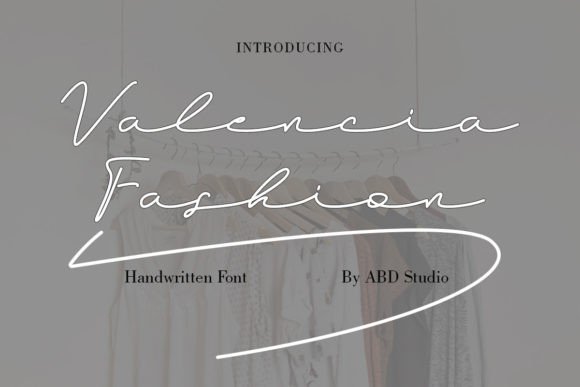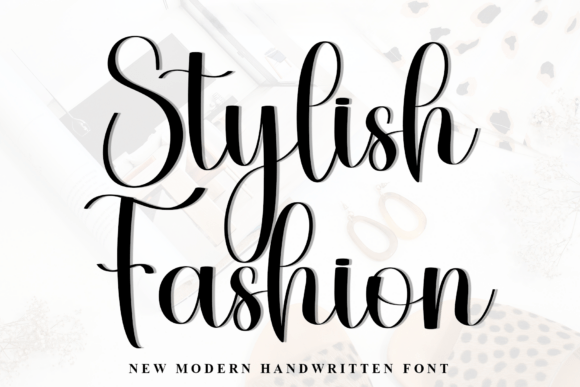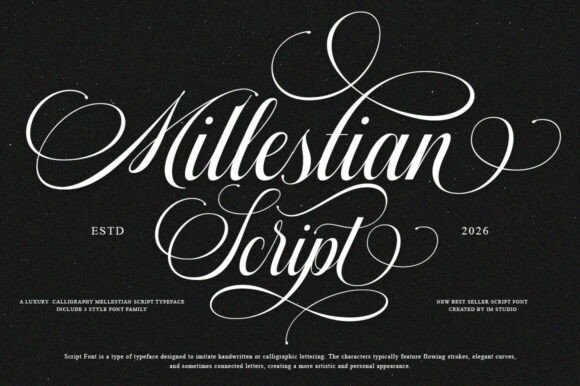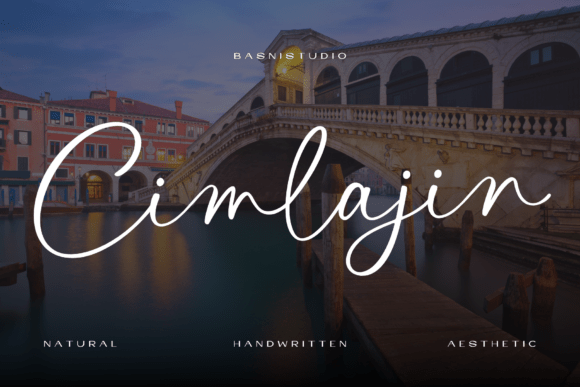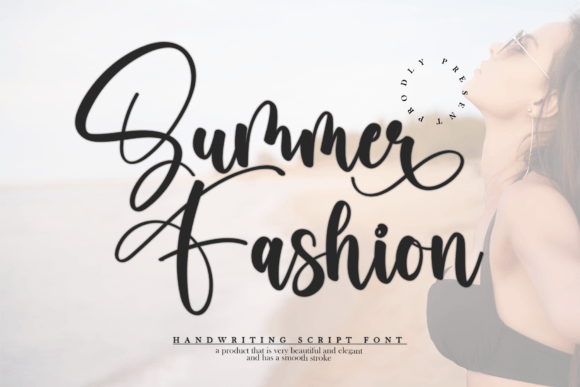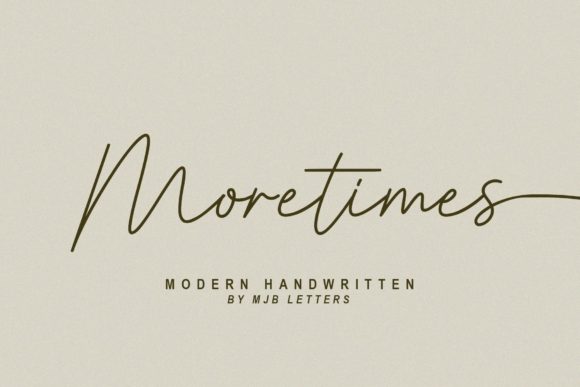
23 Flowing Elegant Script Fonts for Branding (2026)
Elegant script fonts for branding add warmth and movement that no upright type can match. A flowing wordmark reads personal, refined and a little romantic, which is why beauty, fashion and lifestyle brands lean on it. The best elegant script fonts for branding stay graceful and readable, so the brand feels hand-made rather than hard to decipher.
This guide sorts 23 fonts by use, elegant logo scripts, modern handwritten faces, signatures, soft cursives and full duos, so you can pick by job.
How to use elegant script fonts for branding
A script logo is a balance of flow and legibility. A few rules keep elegant script fonts for branding readable.
- Keep it short: a script flatters a name, not a paragraph.
- Use the alternates: swashes and joining letters tidy the flow.
- Pair with a sans: a clean tagline below balances the flourish.
- Test small: thin joins can vanish at favicon size.
Elegant script fonts for brand logos
Start here. These elegant script fonts for branding make graceful, flowing wordmarks for premium brands.
Valencia Fashion
Valencia Fashion is a stylish, elegant handwritten script. Among elegant script fonts for branding it gives a wordmark a refined, fashion-led flourish. Keep it to the name and a short accent, with a clean sans for detail. The graceful forms read polished at size. For a fashion or beauty brand that wants an elegant script logo, Valencia Fashion is a lovely font worth trying.
Stylish Fashion
Stylish Fashion is an elegant script with graceful swashes and fluid strokes. Among elegant script fonts for branding it adds dramatic, sweeping flourishes to a wordmark. Use the swashes on the first and last letters and keep it to the name, with a clean sans for support. The fluid forms want room. For a brand that wants a sweeping, stylish script logo, Stylish Fashion is a graceful font worth a look.
Mallestian Script
Mallestian Script is an elegant script with beautiful character variations. Among elegant script fonts for branding it gives a wordmark a refined, adaptable hand with alternates to fine-tune the join. Keep it to the name and a short line, with a clean sans for detail. The graceful forms read polished at size. For a brand that wants a refined, adaptable script logo, Mallestian is a lovely font worth trying.
Cimlajin
Cimlajin brings romantic, refined elegance to a layout. Among elegant script fonts for branding it makes a soft, graceful wordmark for a beauty, bridal or lifestyle brand. Keep it to the name and a short accent, with a clean sans for detail. The romantic forms read tender at a generous size. For a brand that wants a romantic, elegant script logo, Cimlajin is a graceful font worth a look.
Grandvera
Grandvera is a refined luxury script that blends elegance with smooth flow. Among elegant script fonts for branding it makes a premium, flowing wordmark for a beauty or fashion brand. Keep it to the name and a clean sans tagline. The smooth strokes read expensive at a generous size. For a premium brand that wants a luxury script logo, Grandvera is a graceful font worth a close look.
Summer Fashion
Summer Fashion is a stylish, incredibly elegant handwritten font. Among elegant script fonts for branding it reads graceful and warm, a flexible wordmark for fashion and lifestyle brands. Keep it to the name and a short accent, with a clean sans for detail. The elegant forms read polished at size. For a brand that wants a graceful, hand-written logo, Summer Fashion is a lovely script worth trying.
Modern handwritten fonts for branding
For a fresh, current feel, these modern handwritten elegant script fonts for branding read clean and contemporary.
Handwritten
Handwritten is a sweet, modern cursive with a soft, current feel. Among modern elegant script fonts for branding it reads fresh and friendly, good for a contemporary lifestyle brand. Keep it to the name and a short line, paired with a clean sans. The cursive forms read warm and legible at size. For a modern brand that wants a soft, current script logo, Handwritten is a likeable font worth a look.
Moretimes Font
Moretimes is a modern, clean handwritten font with an elegant flow. Among elegant script fonts for branding it is one of the most legible, good for a brand that wants a hand-written feel without losing clarity. Keep it to the name and a short accent, with a clean sans for detail. The tidy forms read clear at size. For a brand that wants a clean, modern handwritten logo, Moretimes is a sharp script worth trying.